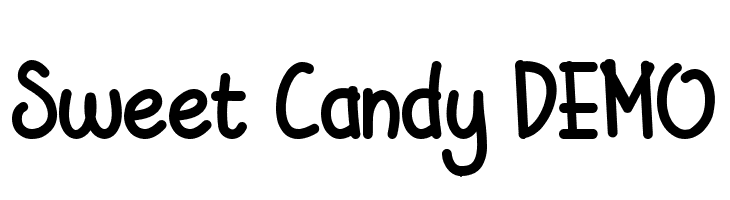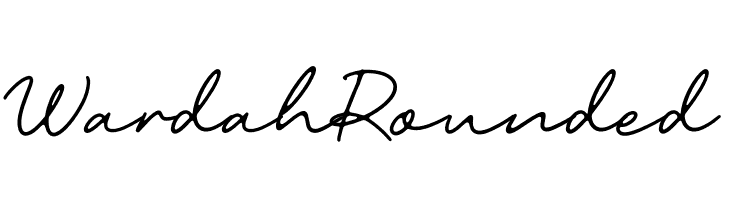
A bold, textured brush font with an artistic and expressive style.
A bold, brush-style font with textured strokes and an energetic feel.
A playful, hand-drawn font with bold, rounded characters.
A dynamic and expressive script font with fluid, spontaneous strokes.
A smooth, flowing script font with elegant, connected letters.